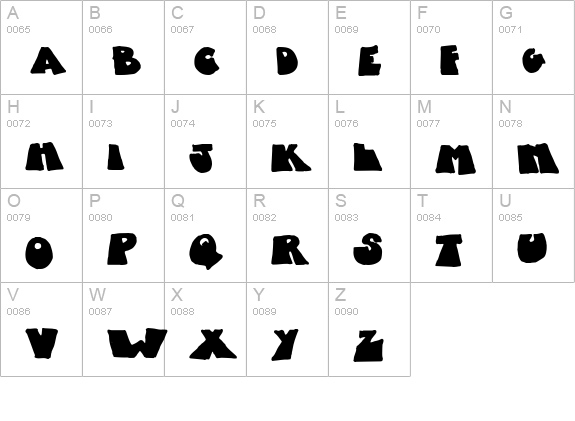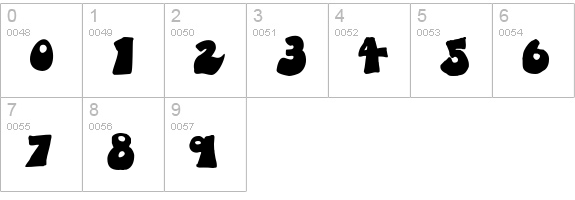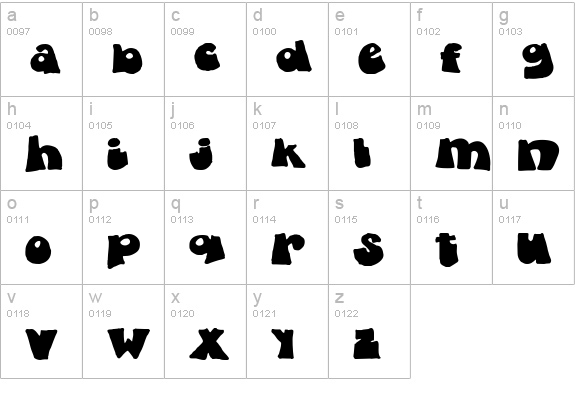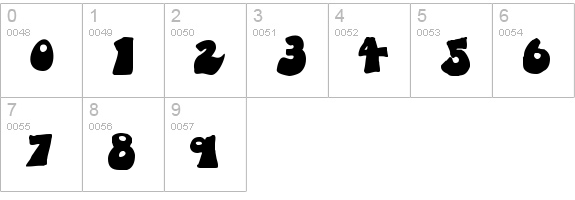
Fatty Bombatty Font Details
Fatty Bombatty font is a bold and playful display font that exudes confidence and charm. With its rounded edges and chunky letterforms, this font is perfect for making a statement in your designs. Whether you're creating eye-catching headlines or adding a touch of whimsy to your projects, Fatty Bombatty is sure to grab attention. And the best part? Fatty Bombatty font is available for free download at FontsMarket.com. So go ahead and add this fun and versatile font to your collection today!